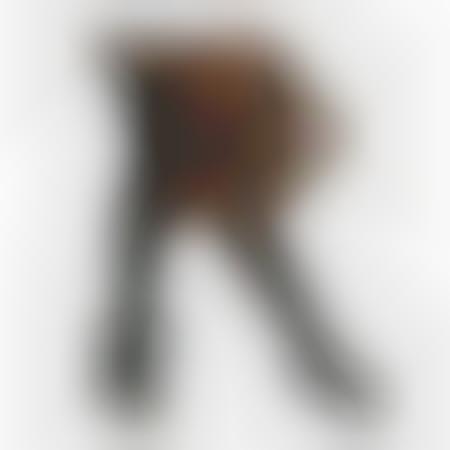
Very clever and fashionably trendy Dutch designer and graphic artist Yvette Yang, creates a couture alphabet that represents relevant semi-annual fashion trends. If you look close enough (and are fashion savvy), you should be able to recognize the fashion era represented by her Fashion Font typeface.
Yvette Yang, a master student from St. Joost in the Netherlands, collected the pieces for her collage-style font from fashion-based lookbooks and magazines.
Implications - Yvette Yang was inspired to create a fashionista alphabet because of the idea that just like letters, clothing and accessories each have their own specific shapes. Yang's favorite letters that she created are M and V, which both feature some awesome high heels.